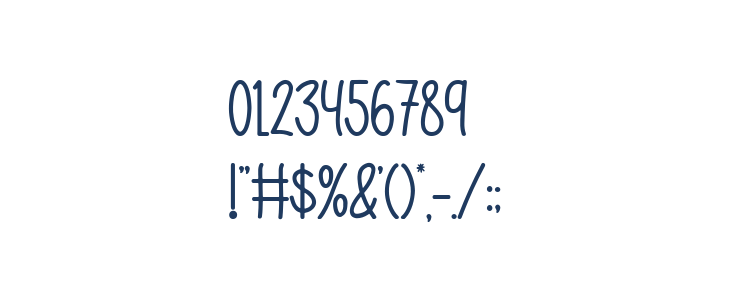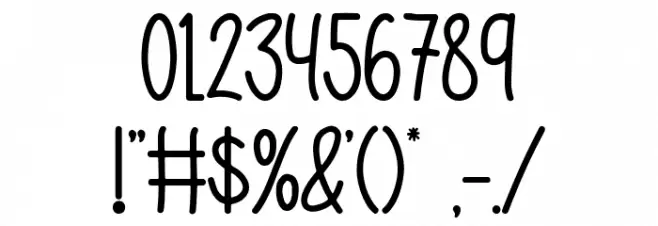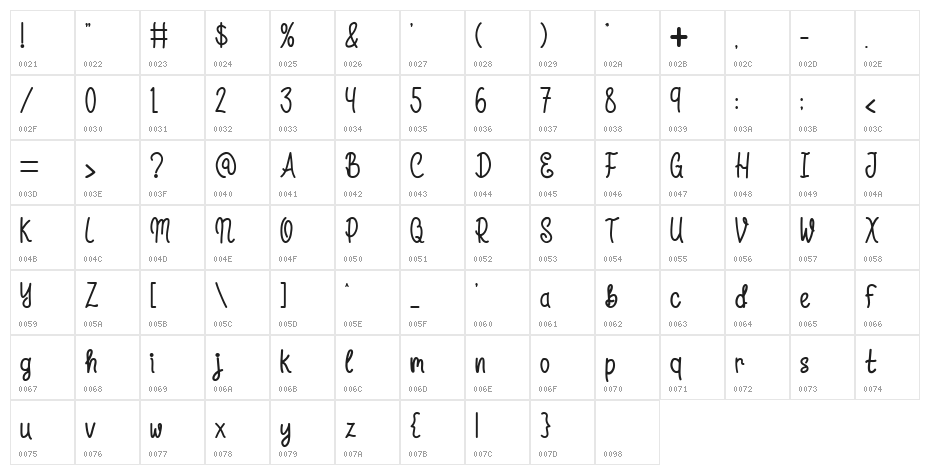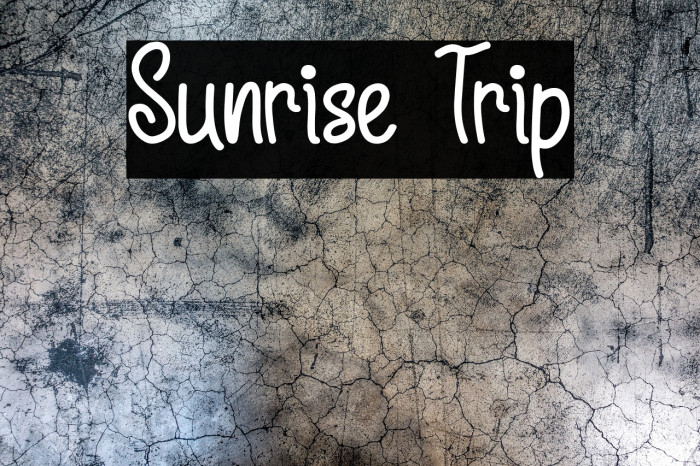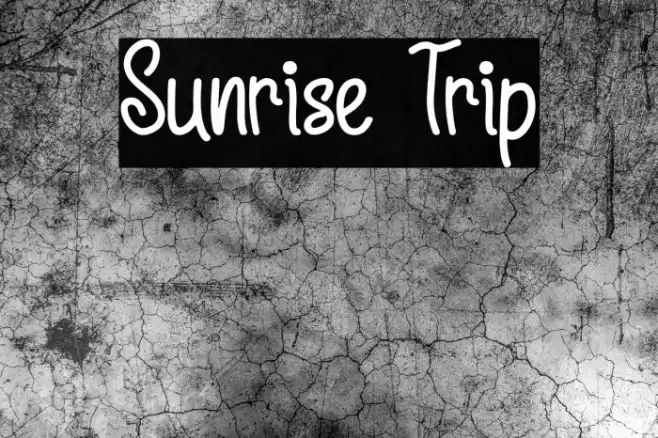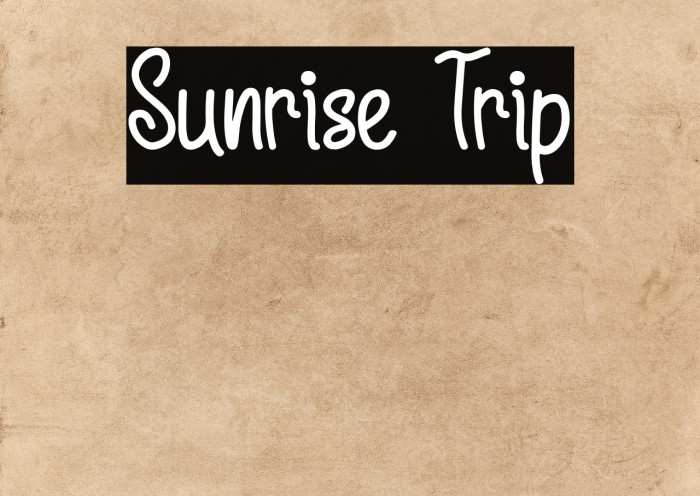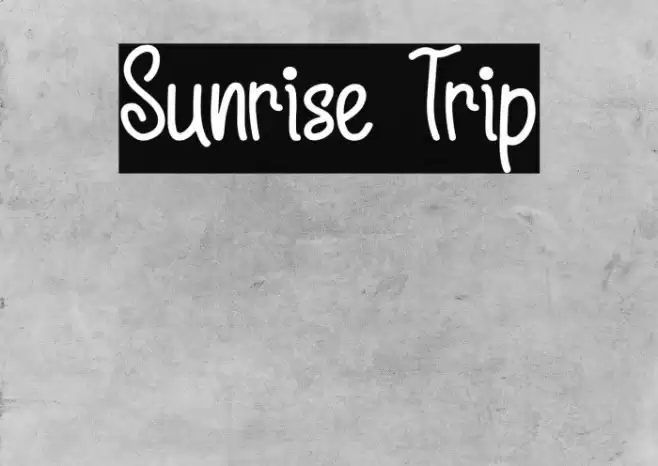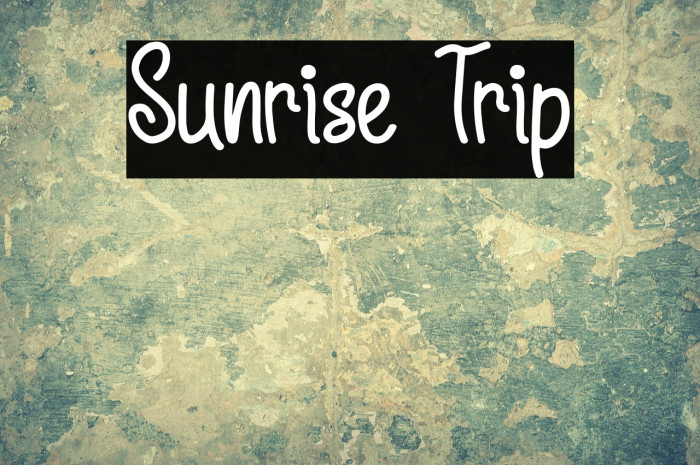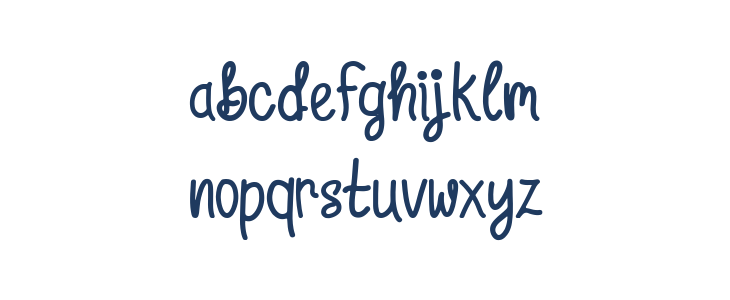
Sunrise Trip Font
Sunrise Trip Description
This font features a playful and whimsical style, characterized by its handwritten appearance. The letters are slightly slanted, giving a casual and friendly vibe. The strokes are consistent in thickness, providing a uniform look across all characters. The uppercase letters are bold and prominent, while the lowercase letters maintain a similar style but with a slightly more relaxed form. Numbers and special characters are designed to match the overall aesthetic, ensuring cohesiveness. The font's informal and approachable nature makes it ideal for creative projects.
| Proposed Projects | Perfect for greeting cards, children's books, playful branding, and creative social media graphics. |